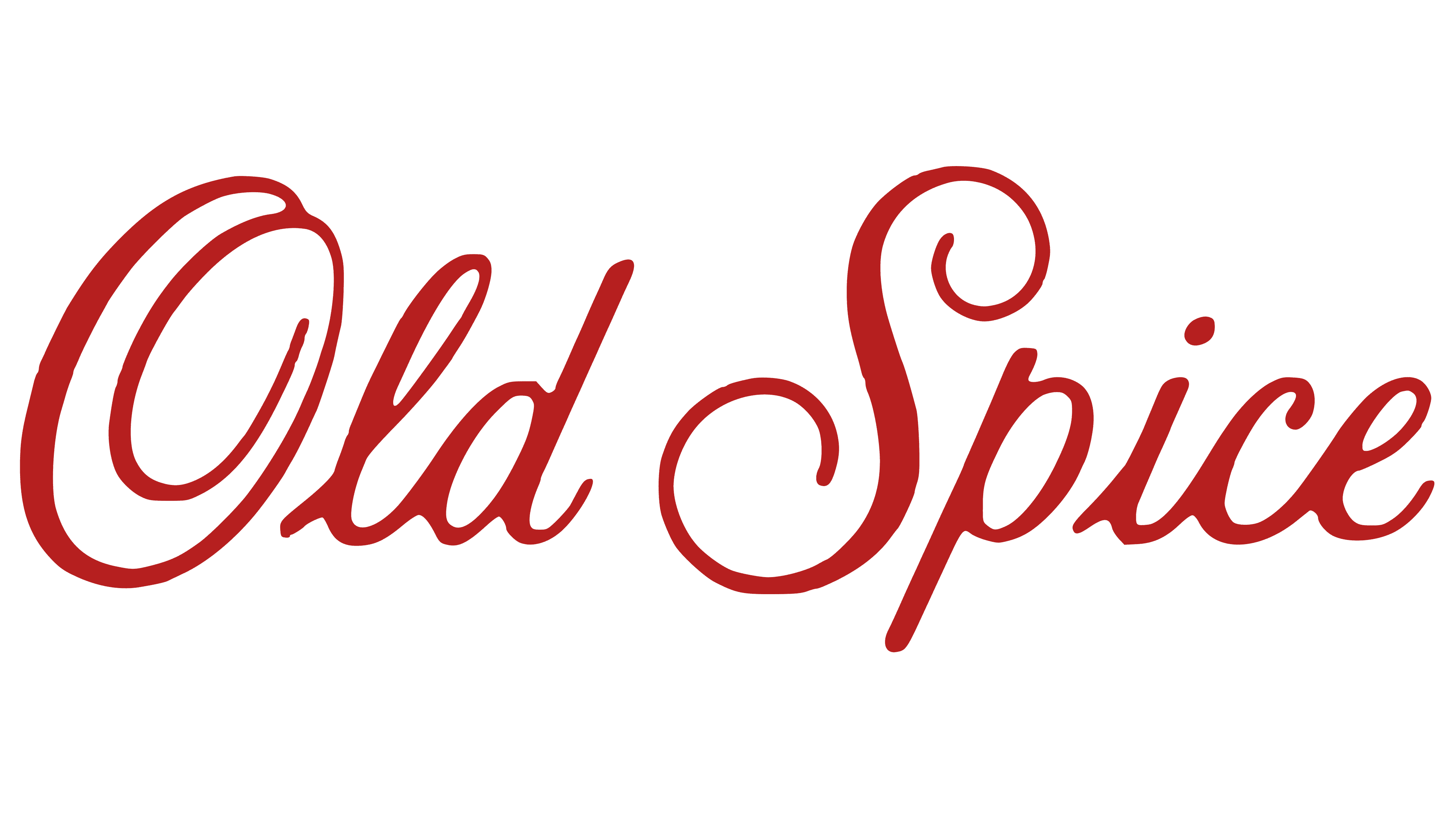
What Font Is The Old Spice Logo . The current logo consists of dark red over a white background, or white over a dark red background, depending on the product and packaging. Browse by alphabetical listing, by style, by author or by popularity. Old spice was introduced in 1937 under the name of early american old spice. Archive of freely downloadable fonts. Aug 01, 2012 at 10:08. Nowadays, it is mostly referred to as “old spice” font. This is most probably not a. The second typeface in the ad is the old spice logo, which is from the script family. Fandom apps take your favorite fandoms with you and never miss a beat. Old spice is an american brand of male grooming products encompassing aftershaves, deodorants and antiperspirants, shampoos, body washes,.
Browse by alphabetical listing, by style, by author or by popularity. Fandom apps take your favorite fandoms with you and never miss a beat. This is most probably not a. Aug 01, 2012 at 10:08. Old spice was introduced in 1937 under the name of early american old spice. The current logo consists of dark red over a white background, or white over a dark red background, depending on the product and packaging. Archive of freely downloadable fonts. The second typeface in the ad is the old spice logo, which is from the script family. Nowadays, it is mostly referred to as “old spice” font. Old spice is an american brand of male grooming products encompassing aftershaves, deodorants and antiperspirants, shampoos, body washes,.
Old Spice Logo History
What Font Is The Old Spice Logo Fandom apps take your favorite fandoms with you and never miss a beat. Old spice was introduced in 1937 under the name of early american old spice. This is most probably not a. Nowadays, it is mostly referred to as “old spice” font. The current logo consists of dark red over a white background, or white over a dark red background, depending on the product and packaging. Old spice is an american brand of male grooming products encompassing aftershaves, deodorants and antiperspirants, shampoos, body washes,. The second typeface in the ad is the old spice logo, which is from the script family. Aug 01, 2012 at 10:08. Fandom apps take your favorite fandoms with you and never miss a beat. Archive of freely downloadable fonts. Browse by alphabetical listing, by style, by author or by popularity.
Old Spice Logo & Transparent Old Spice.PNG Logo Images What Font Is The Old Spice Logo Browse by alphabetical listing, by style, by author or by popularity. Aug 01, 2012 at 10:08. Nowadays, it is mostly referred to as “old spice” font. The current logo consists of dark red over a white background, or white over a dark red background, depending on the product and packaging. Archive of freely downloadable fonts. Old spice is an american. What Font Is The Old Spice Logo.
Old Spice Logo Font Chocolate Product Design PNG, Clipart, Brand What Font Is The Old Spice Logo The second typeface in the ad is the old spice logo, which is from the script family. Fandom apps take your favorite fandoms with you and never miss a beat. Old spice is an american brand of male grooming products encompassing aftershaves, deodorants and antiperspirants, shampoos, body washes,. Nowadays, it is mostly referred to as “old spice” font. Archive of. What Font Is The Old Spice Logo.
1937 Old Spice Logo What Font Is The Old Spice Logo The second typeface in the ad is the old spice logo, which is from the script family. This is most probably not a. Old spice is an american brand of male grooming products encompassing aftershaves, deodorants and antiperspirants, shampoos, body washes,. Archive of freely downloadable fonts. Aug 01, 2012 at 10:08. The current logo consists of dark red over a. What Font Is The Old Spice Logo.
Old Spice Logo, symbol, meaning, history, PNG, brand What Font Is The Old Spice Logo This is most probably not a. Old spice was introduced in 1937 under the name of early american old spice. Browse by alphabetical listing, by style, by author or by popularity. Fandom apps take your favorite fandoms with you and never miss a beat. The second typeface in the ad is the old spice logo, which is from the script. What Font Is The Old Spice Logo.
Logo Old Spice Png Baixar Imagens em PNG What Font Is The Old Spice Logo The current logo consists of dark red over a white background, or white over a dark red background, depending on the product and packaging. This is most probably not a. Aug 01, 2012 at 10:08. Old spice was introduced in 1937 under the name of early american old spice. Browse by alphabetical listing, by style, by author or by popularity.. What Font Is The Old Spice Logo.
Old Spice Logo History What Font Is The Old Spice Logo Browse by alphabetical listing, by style, by author or by popularity. Old spice is an american brand of male grooming products encompassing aftershaves, deodorants and antiperspirants, shampoos, body washes,. The current logo consists of dark red over a white background, or white over a dark red background, depending on the product and packaging. The second typeface in the ad is. What Font Is The Old Spice Logo.
Old Spice Logo History What Font Is The Old Spice Logo Old spice was introduced in 1937 under the name of early american old spice. Aug 01, 2012 at 10:08. Old spice is an american brand of male grooming products encompassing aftershaves, deodorants and antiperspirants, shampoos, body washes,. Fandom apps take your favorite fandoms with you and never miss a beat. Archive of freely downloadable fonts. This is most probably not. What Font Is The Old Spice Logo.
Old Spice Brands of the World™ Download vector logos and logotypes What Font Is The Old Spice Logo Old spice is an american brand of male grooming products encompassing aftershaves, deodorants and antiperspirants, shampoos, body washes,. Browse by alphabetical listing, by style, by author or by popularity. Fandom apps take your favorite fandoms with you and never miss a beat. The second typeface in the ad is the old spice logo, which is from the script family. Old. What Font Is The Old Spice Logo.
Old Spice Logo PNG e Vetor Download de Logo What Font Is The Old Spice Logo Old spice was introduced in 1937 under the name of early american old spice. Browse by alphabetical listing, by style, by author or by popularity. Old spice is an american brand of male grooming products encompassing aftershaves, deodorants and antiperspirants, shampoos, body washes,. This is most probably not a. The current logo consists of dark red over a white background,. What Font Is The Old Spice Logo.